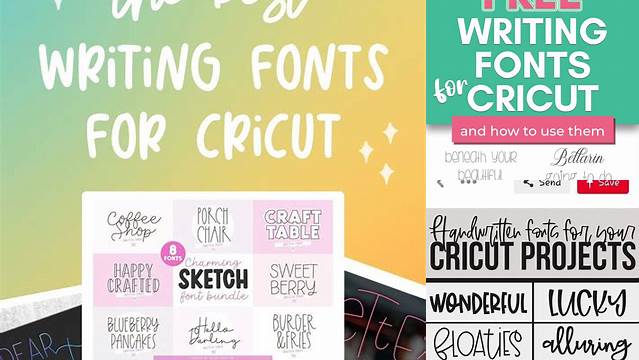
Best Cricut Fonts For Stunning Writing Projects
Hey there, crafting enthusiasts! Ever wondered how to make your Cricut projects stand out with beautifully written text? Well, you're in the right place! Finding the perfect Cricut fonts for writing can be a game-changer. It's like giving your creations a touch of elegance and personality. This article is your ultimate guide to the best fonts that will bring your writing projects to life. Whether you're a seasoned Cricut user or just starting, get ready to discover fonts that are not only visually appealing but also easy to cut and weed. Let's dive in and explore the wonderful world of Cricut fonts that will make your projects shine! Let's get this crafting party started! We'll cover everything from script fonts to block letters, ensuring you have the perfect font for any occasion. Get ready to unleash your creativity and take your Cricut projects to the next level!
1. Understanding Cricut Fonts and Their Importance
Alright, guys, before we jump into the font frenzy, let's chat about why choosing the right Cricut fonts for writing is super important. Think of fonts as the voice of your project. They set the tone and add personality! A well-chosen font can elevate your design from good to absolutely stunning. It's all about making your message clear and visually appealing. Consider this – you're making a custom greeting card. You could use a basic font, but imagine using a beautiful script font that flows gracefully across the card. The difference? Huge! It instantly adds a touch of sophistication and charm. Or, let's say you're creating a personalized sign. The right font can make the sign match the room's vibe and really catch the eye. Choosing the right font isn't just about aesthetics; it's also about readability and practicality. You want your text to be easy to read, especially if it's small. Also, some fonts are easier to cut and weed than others, which saves you time and frustration. So, basically, the right font makes your projects look better, easier to make, and more enjoyable to use. So, the next time you're working on a project, remember that the font you choose is a huge deal. It's the secret ingredient that turns a simple project into a masterpiece! Picking the perfect font makes all the difference.
2. Top Script Fonts for Elegant Writing with Your Cricut
Okay, let's get to the good stuff! If you're after elegance and a touch of flair, script fonts are where it's at. They mimic handwriting and add a beautiful, flowing touch to any project. I'll give you a heads-up on some of the best Cricut fonts for writing script fonts that will make your projects look amazing. First up, we have 'Samantha Font' – a classic! It's known for its beautiful curves and detailed strokes. 'Samantha' is a premium font, meaning you might need to pay for it, but trust me, it's worth it if you're aiming for a high-end look. Perfect for wedding invitations, monograms, or anything that needs a sophisticated touch. Then there's 'Playlist Script', which is often available as a free font on Cricut Design Space! This font is super versatile and has a modern, playful vibe. 'Playlist Script' is perfect for headings, quotes, and anything that needs a little extra personality. Easy to cut and weed, it's a total win-win. Another great option is 'Honeycrisp Script'. This font has a slightly more casual feel but is still elegant. The slightly imperfect strokes give it a handmade feel that's great for a variety of projects. 'Honeycrisp' is awesome for cards, signs, and gifts. But wait, there's more! Consider 'Sofia Script' and 'Magnolia Sky'. Both have a classic script style, which adds a touch of romance. These scripts work well with personal items, especially if you like a vintage vibe. Using these script fonts is a surefire way to add a touch of elegance and sophistication to your Cricut projects. They make everything feel more personal and special. Remember, when using script fonts, it's important to weld the letters together so they cut as one piece. This creates a seamless, professional look. Get ready to impress with these gorgeous scripts!
2.1. Free vs. Paid Script Fonts: What's the Difference?
So, you're on the hunt for those stunning Cricut fonts for writing script fonts, and you stumble upon the age-old debate: free vs. paid. Which one's better? Let's break it down, yeah? Free script fonts are awesome because, well, they're free! You can find tons of these in Cricut Design Space or other online font libraries. They're perfect for starting out or if you're on a budget. However, free fonts sometimes have limitations. They might not be as unique, and the quality can vary. Some might be harder to cut or have fewer features. Also, keep in mind the licensing. Always check if you can use a free font for commercial purposes if you plan to sell your creations. On the other hand, paid script fonts usually offer a higher level of quality, design, and options. Designers put a lot of effort into these fonts, so they're often more detailed and visually appealing. You'll find more choices, like different weights, ligatures, and special characters. Paid fonts are often easier to cut and weed, which saves you time and materials. But hey, this doesn't mean free fonts are bad! You can totally find amazing free fonts that work perfectly for your projects. Just be sure to check the details and test them out before committing to a big project. Consider your budget, the project, and how important the quality is to you. Either way, there are plenty of great fonts to choose from, so have fun exploring!
2.2. Welding Script Fonts for Seamless Writing
Alright, crafters, let's talk about a super important step for making script fonts look their best: welding! When you're working with Cricut fonts for writing, especially script fonts, you'll often notice that the letters are separate. If you cut them like that, your text will look disjointed, and that's not what we want! Welding is the process of merging those individual letters together so they cut as one continuous piece. This creates that beautiful, seamless look that script fonts are known for. In Cricut Design Space, it's super easy to weld. Just select your text, and then click the 'Weld' button in the bottom right corner. Boom! Your letters are now connected. Before you weld, make sure your letters are touching or overlapping slightly. This is how the letters connect when they are welded. If the letters aren't touching, they won't weld together. You can adjust the spacing between your letters using the 'Letter Space' option in the Design Space menu. Once you weld, you can no longer edit the individual letters. So, before you weld, be 100% sure that your text looks perfect. If you make a mistake, you'll have to start over or 'undo' and go back to fix it. Welding is a must-do for script fonts. It's the secret to achieving a professional, polished look that will make your projects stand out. So, weld away and let your creativity flow!
3. Block Fonts: The Ideal Choice for Readability
Okay, let's switch gears and talk about block fonts. If you're after clean lines and maximum readability, block fonts are the way to go. These fonts, also known as sans-serif fonts, are perfect for projects where clarity is key. They are super easy to read from a distance, making them ideal for signs, headings, and anything that needs to grab attention. When choosing Cricut fonts for writing block fonts, think about what message you want to convey. A simple, bold font can create a modern and minimalist look, while a slightly more stylized block font can add a touch of personality. Some popular block fonts include 'Arial', 'Helvetica', and 'Impact'. These are all great for their simplicity and readability. They are often included in Cricut Design Space or can be easily downloaded. For a more unique look, check out fonts like 'Bebas Neue' or 'Montserrat'. These fonts offer a modern take on the block font style. Remember to consider the thickness of the font when choosing a block font. Thicker fonts are easier to cut and weed, especially for smaller projects. Thinner fonts can look elegant, but they can be tricky to work with, especially if you're using delicate materials. Block fonts are also fantastic because they work well with a variety of materials. Whether you're cutting vinyl, cardstock, or iron-on, a block font will deliver great results. Use block fonts when you want your message to be clear, concise, and eye-catching. Their versatility and readability make them a go-to choice for any Cricut project!
3.1. Choosing the Right Block Font for Your Project
Alright, let's get down to the nitty-gritty of choosing the perfect block font for your Cricut project. With so many Cricut fonts for writing block fonts out there, how do you know which one to pick? First off, think about your project's purpose and the message you want to convey. Are you creating a sign for a kid's room? A bold, playful font like 'Comic Sans' might be perfect. Designing a professional-looking business card? A clean, modern font like 'Helvetica' or 'Arial' would be a better choice. Next, consider readability. Block fonts are all about clarity, so you want to make sure your font is easy to read from a distance and in different sizes. Thicker fonts are generally easier to read, especially when you're cutting them small. For larger projects, you have more flexibility. You can experiment with thinner fonts or fonts with unique features. Think about the materials you'll be using, too. If you're cutting vinyl, a bolder font will be easier to weed and apply. If you're using cardstock, you can often get away with a thinner font. Experiment with a few different fonts in Cricut Design Space before you commit to your project. Type out your text in each font and see how it looks. Does it match the look and feel you're going for? Don't be afraid to try something new. Sometimes a font you wouldn't normally consider might be perfect for your project. Block fonts are super versatile. So, take your time, try different options, and have fun finding the perfect font for your project!
3.2. Pairing Block Fonts with Other Fonts
Let's talk about leveling up your designs by pairing block fonts with other fonts. When it comes to Cricut fonts for writing, knowing how to combine different fonts can dramatically enhance the look of your projects. A good rule of thumb is to mix a block font with a script or a decorative font. This creates visual interest and balance. For instance, you could use a strong, bold block font for the main heading and a flowing script font for a subtitle or a few extra details. This helps to create a clear hierarchy. The block font grabs attention, and the script font adds a touch of elegance and detail. If you're using a decorative font, use it sparingly. These fonts can be more complex and might be hard to read. The block font will provide a base of readability. Color can also help in pairing fonts. Make sure the fonts complement each other. Using different fonts from the same font family creates consistency. This could be a bold weight of a font with a lighter weight. You can use tools like Canva or Adobe Fonts to preview font pairings. Play around with different combinations, and don't be afraid to experiment. Good font pairings can make your projects professional and visually appealing. The goal is to balance readability, visual appeal, and the overall message of your project. So, go ahead, mix and match, and let your creativity shine!
4. Fonts for Special Occasions and Projects
Okay, let's explore some font options perfect for those special occasions and projects. Certain fonts really shine when it comes to creating personalized gifts and decorations. If you're crafting for a wedding, consider fonts that look elegant. Cricut fonts for writing script fonts or fonts with delicate serifs are great choices. These fonts will add a touch of sophistication to invitations, signs, and favors. For baby showers or kids' projects, choose fonts that are fun and playful. Fonts like 'Bubble Letters' or 'Comic Sans' are good choices. For birthdays, you can experiment with a variety of styles. Consider a bold, modern font for a contemporary look. If you're making holiday decorations, consider seasonal fonts. There are fonts for Christmas, Halloween, and other holidays. For home decor, you can use a mix of fonts to create a unique style. Block fonts work well for signs, and script fonts add an element of elegance. Remember to choose fonts that reflect the tone and style of the occasion or project. Consider what the message is, and then pick a font that supports it. Experiment with different fonts to find the perfect match. By choosing the right fonts, you'll be able to create projects that are not only beautiful but also memorable. So, get inspired and start creating!
6.2. Online Font Resources and Marketplaces
Let's explore the wonderful world of online font resources and marketplaces. If you are looking for the best Cricut fonts for writing, you'll find tons of fonts online. There are many websites that offer amazing font collections. Sites like Creative Fabrica, FontBundles.net, and Etsy are great places to find unique fonts. These sites usually have affordable fonts. Some sites, like DaFont, offer free fonts. Always check the licensing before downloading and using a free font. These online font marketplaces often have deals and discounts. It's a great way to save money on fonts. You can find fonts for every style and project. You can find a font that matches your project. If you're looking for something super unique, consider commissioning a custom font. It's a great way to add a special touch to your projects. Explore these resources and see what's out there. With so many fonts available, you are guaranteed to find the perfect font for any project. Don't be afraid to experiment and have fun! Happy font hunting!